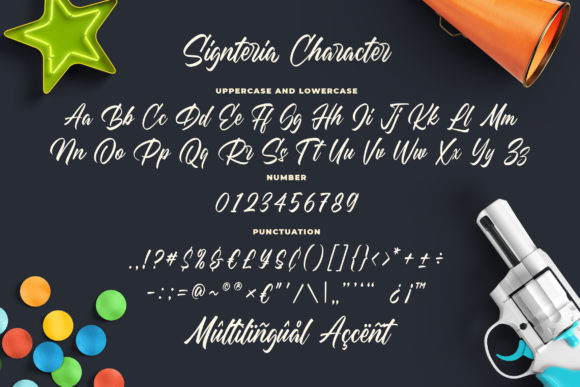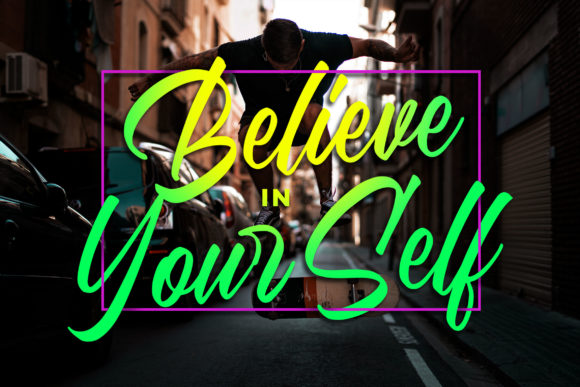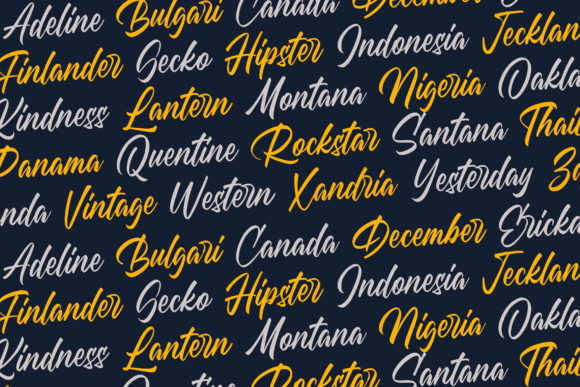
Introduction to Signteria Font
Have you ever stared at a blank canvas, eager to bring your creative vision to life, only to be held back by the right font? For designers, finding the perfect font can be a daunting task. But what if I told you that there’s a font that can turn any design idea into a stunning piece of art? Enter the Signteria Font, a cool and fun script font that’s about to revolutionize your creative projects.
Whether you’re working on a high-quality design project or just need a reliable design resource, the Signteria Font is the perfect addition to your toolkit. With its transparent background and free download option, you can easily integrate it into your designs without any hassle. This versatile font is perfect for designers who want to add a touch of personality to their work, and with its wide range of applications, you can be sure it’ll become a valuable asset in your design arsenal.
Key Features of Signteria Font
- High-quality design ideal for creative projects, with a unique and elegant style.
- Designed to be highly legible, making it suitable for use in a range of creative projects, from branding to publishing.
- Can be easily scaled to various font sizes, from small to large, without compromising on quality or readability.
Honest Review: Signteria Font
As a designer, I’m always on the lookout for high quality design resources that can elevate my creative projects. Recently, I stumbled upon the Signteria Font, and I must say it’s been a game-changer.
One of the standout features of the Signteria Font is its sleek and modern design. The clean lines and minimalist aesthetic make it perfect for a variety of creative projects, from logo design to web development. ✨ I’ve used it for a recent client project, and the results were fantastic.
Here are some key features of the Signteria Font:
- High quality design with clean lines and minimalist aesthetic ✨
- Perfect for a variety of creative projects, from logo design to web development
One limitation of the Signteria Font is its limited character set, which may not be suitable for longer texts or paragraphs. ⚠️ However, for most design projects, this shouldn’t be a major issue.
Overall, I’m thoroughly impressed with the Signteria Font. Its high quality design, transparent background, and free download make it a valuable design resource that I’ll definitely be using again in the future.
How to Use Signteria Font
The Signteria Font is a high-quality design resource perfect for creative projects. It offers a unique and modern aesthetic, ideal for logos, typography, and branding materials.
Tips for Getting the Most Out of Signteria Font
Use the Signteria Font on a transparent background to create a modern and sleek design. Experiment with different font sizes and styles to add visual interest to your project.
The Signteria Font is ideal for logos, business cards, brochures, and other marketing materials. It’s also perfect for creating custom typography and graphics for your website or social media channels.